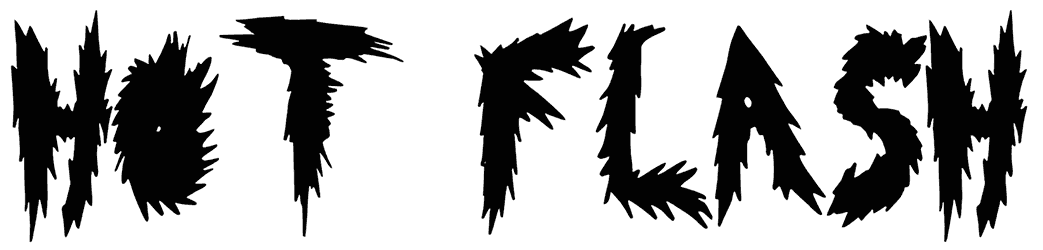
Sectar Font
Bordered with sharp and irregular spikes all around each of its elements, Sectar retains an intimidating look that makes it a great horror font. This awesome death metal font is usable for a variety of media, like posters, YouTube covers, books, and so on, adding a hint of scary vibes to your project.
The only thing about Sectar is that it doesn’t include the lowercase versions, but it doesn’t make a difference as long as it’s an impressive title you’re looking for.